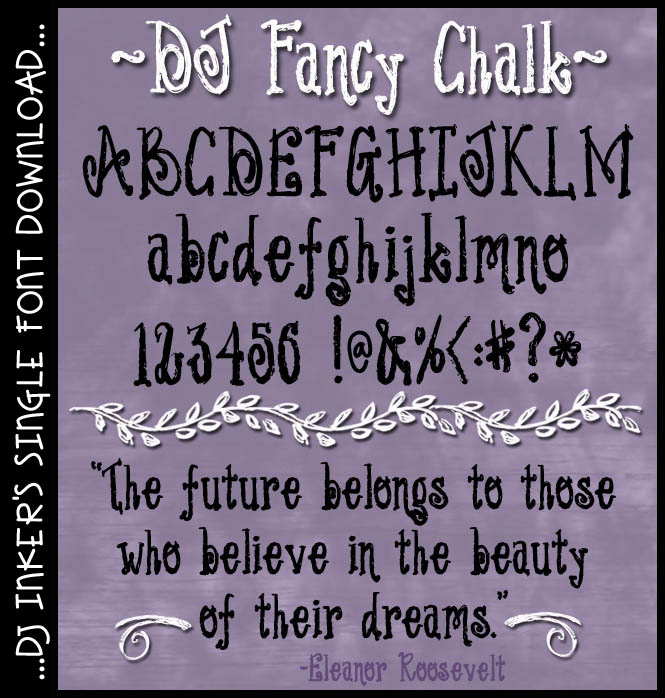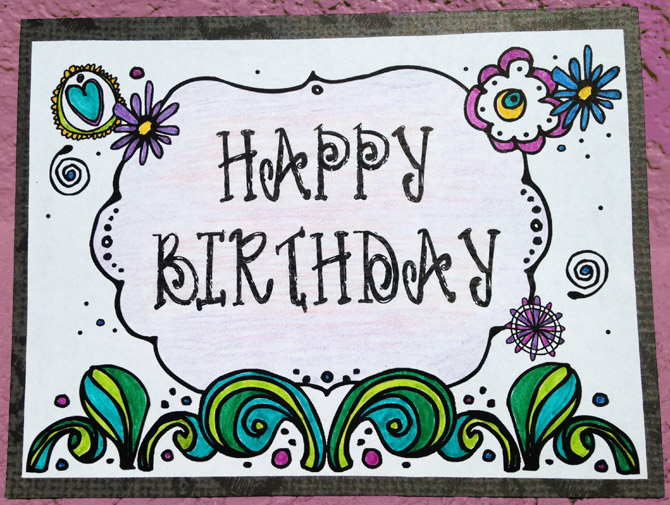
DJ Fancy Chalk Font Download
Bring a fun, yet sophisticated style to chalkboard lettering with our
lovely DJ Fancy Chalk font. These curly chalkboard letters
look fabulous in white over dark backgrounds... or type in bold, dark colors
for an edgy, textured design. Great for creating smiles at home, school,
parties, office & more.